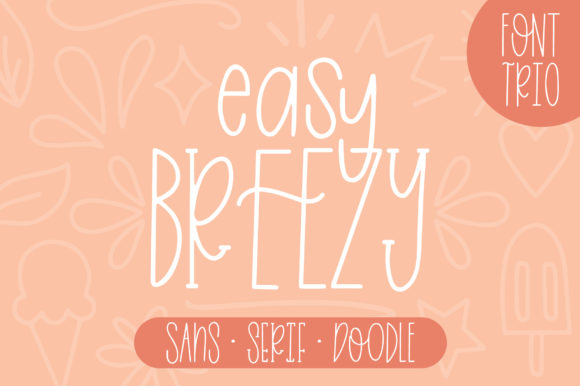
Easy Breezy Font: The Perfect Combination for Modern Crafting Projects
The world of fonts and typography is vast and diverse, offering a multitude of options for crafters, designers, and artists. Among these, the Easy Breezy Font stands out as a unique and versatile combination that can elevate any crafting project to new heights. In this article, we’ll explore the Easy Breezy Font, its features, and how it can be used to add a modern, light, and warm feel to your creations.
What is Easy Breezy Font?
Easy Breezy is a thoughtfully designed font family that consists of three complementary fonts: a regular version, a serif, and a symbol style. This combination makes it an ideal choice for crafters and designers looking for a harmonious and visually appealing typography solution. The regular version of Easy Breezy perfectly complements the serif and symbol styles, creating a cohesive and modern look.
Key Features of Easy Breezy Font
- Modern and Light Feel: Easy Breezy Font is designed to provide a modern and light feel to your crafting projects. Its clean lines and elegant curves make it perfect for a wide range of applications.
- Warm and Inviting: The font’s warm and inviting style makes it ideal for creating a cozy and welcoming atmosphere in your designs.
- Versatile and Adaptable: Easy Breezy Font can be used in various applications, from branding and covers to invitations and more.
- Easy to Read: The font’s clear and legible design ensures that your text is easy to read, making it perfect for body text and headings.
The Benefits of Using Easy Breezy Font
Using Easy Breezy Font in your crafting projects offers several benefits. Its versatility allows you to experiment with different styles and applications, making it an excellent choice for:
Applications of Easy Breezy Font
- Branding: Create a consistent and recognizable brand identity with Easy Breezy Font.
- Covers and Packaging: Add a modern and eye-catching touch to your book covers, product packaging, and more.
- Invitations and Stationery: Design beautiful and elegant invitations, greeting cards, and stationery with Easy Breezy Font.
- Digital Media: Use Easy Breezy Font in your digital media, such as social media graphics, blog posts, and website designs.
Tips for Using Easy Breezy Font
To get the most out of Easy Breezy Font, here are some tips to keep in mind:
Tips for Using Easy Breezy Font
- Experiment with Font Combinations: Try pairing Easy Breezy Font with other fonts to create a unique and interesting look.
- Adjust Font Sizes and Styles: Play with font sizes and styles to add visual hierarchy and emphasis to your text.
- Use Colors and Textures: Add colors and textures to your text to create a more dynamic and engaging design.
- Keep it Simple: Don’t overcomplicate your design – keep it simple and elegant to let Easy Breezy Font shine.
In conclusion, Easy Breezy Font is a match made in heaven for crafters and designers looking for a modern, light, and warm typography solution. Its versatility, elegance, and readability make it an excellent choice for a wide range of applications. By following the tips outlined in this article, you can unlock the full potential of Easy Breezy Font and take your crafting projects to new heights.
Final Thoughts
Easy Breezy Font is a powerful tool that can elevate your crafting projects and help you achieve a professional and polished look. With its unique combination of modern and classic elements, it’s sure to become a favorite among crafters and designers. So why wait? Give Easy Breezy Font a try today and experience the difference for yourself!